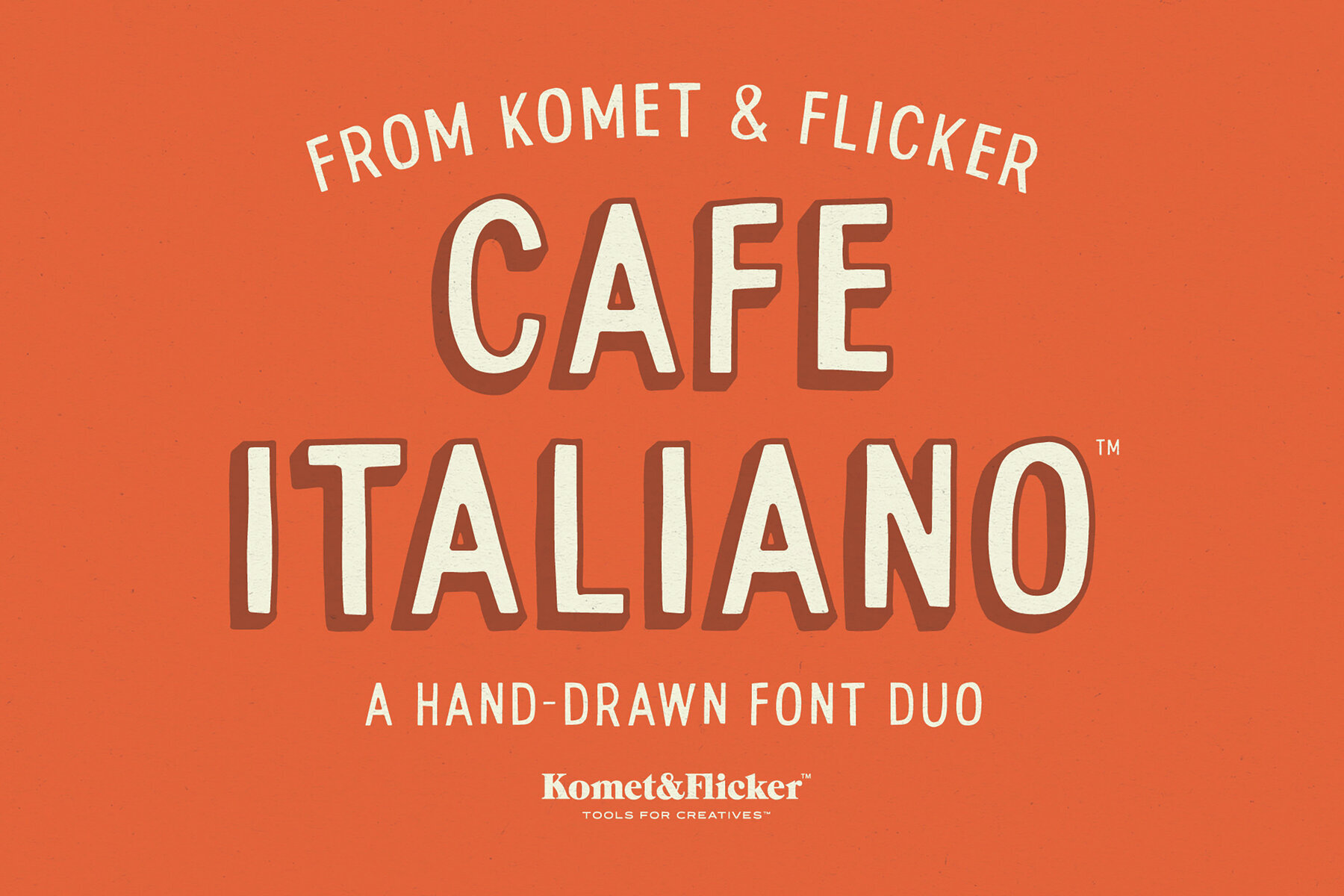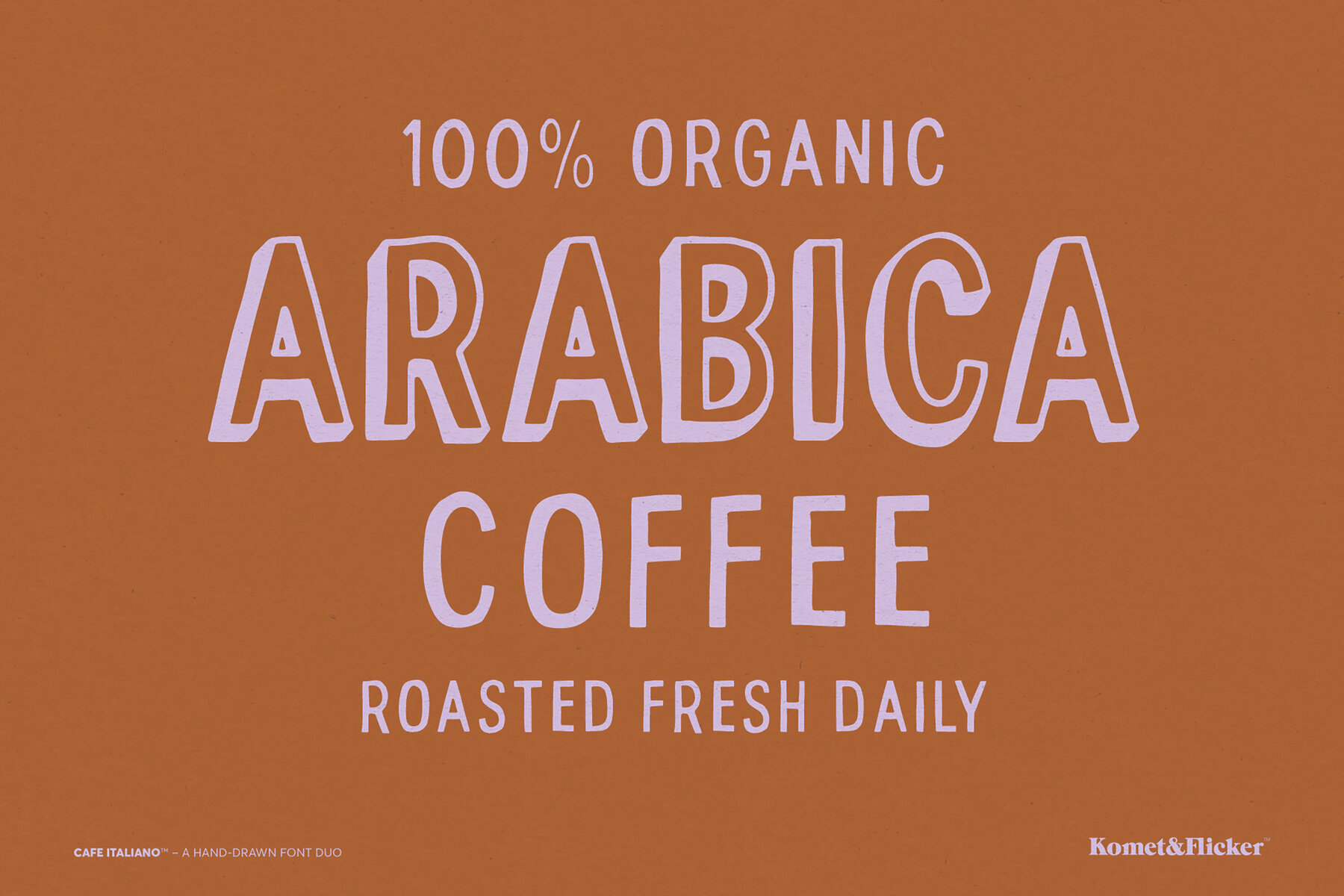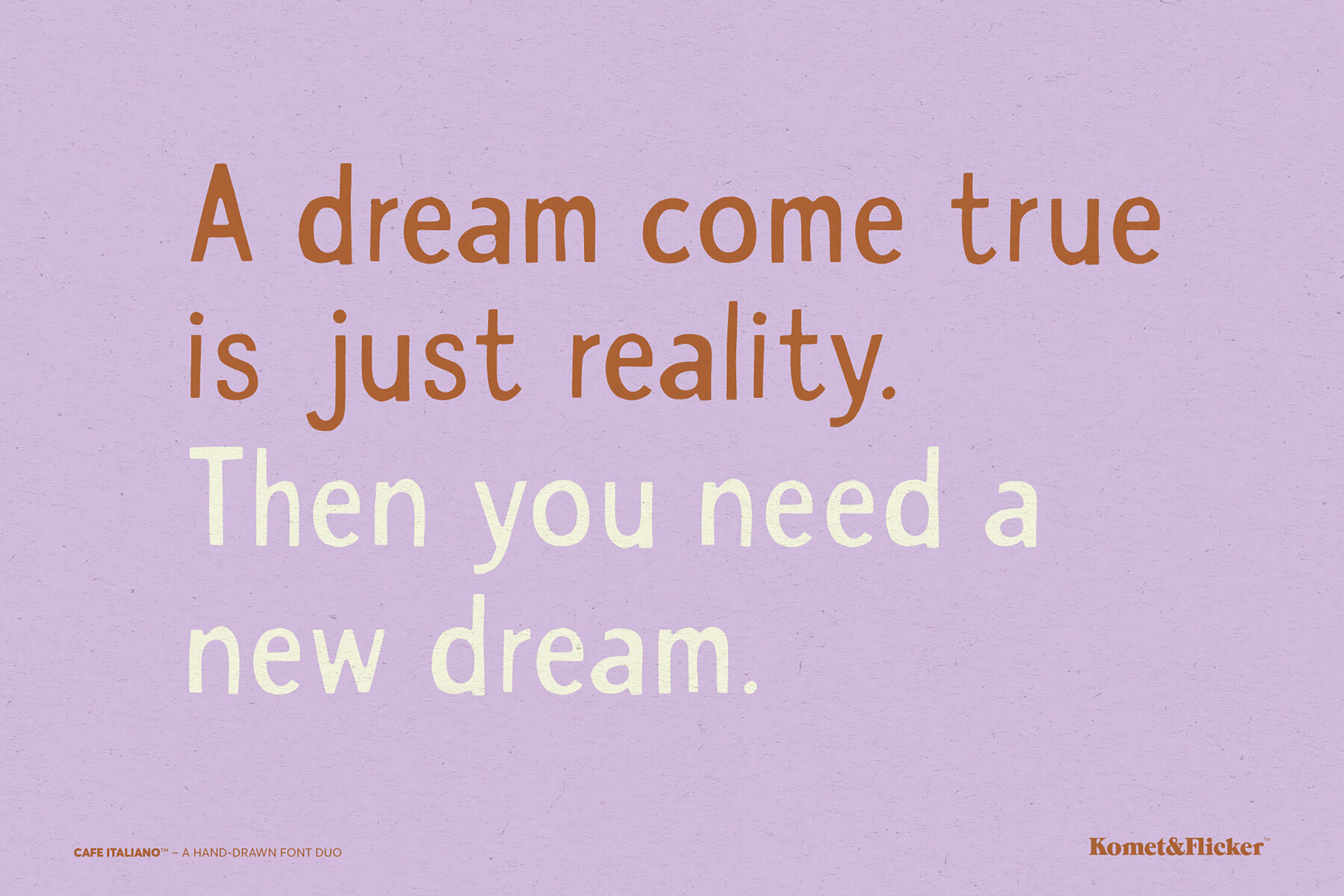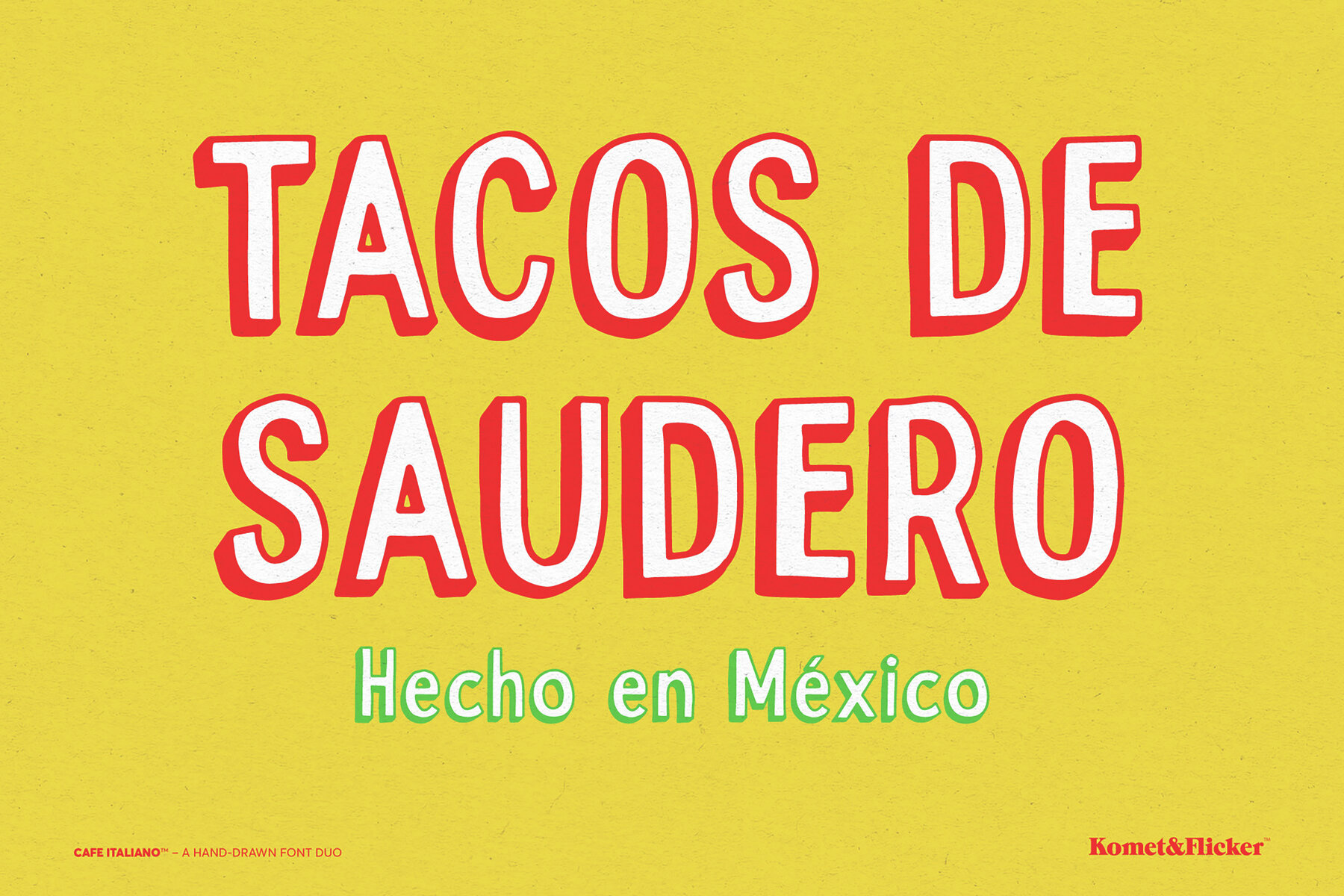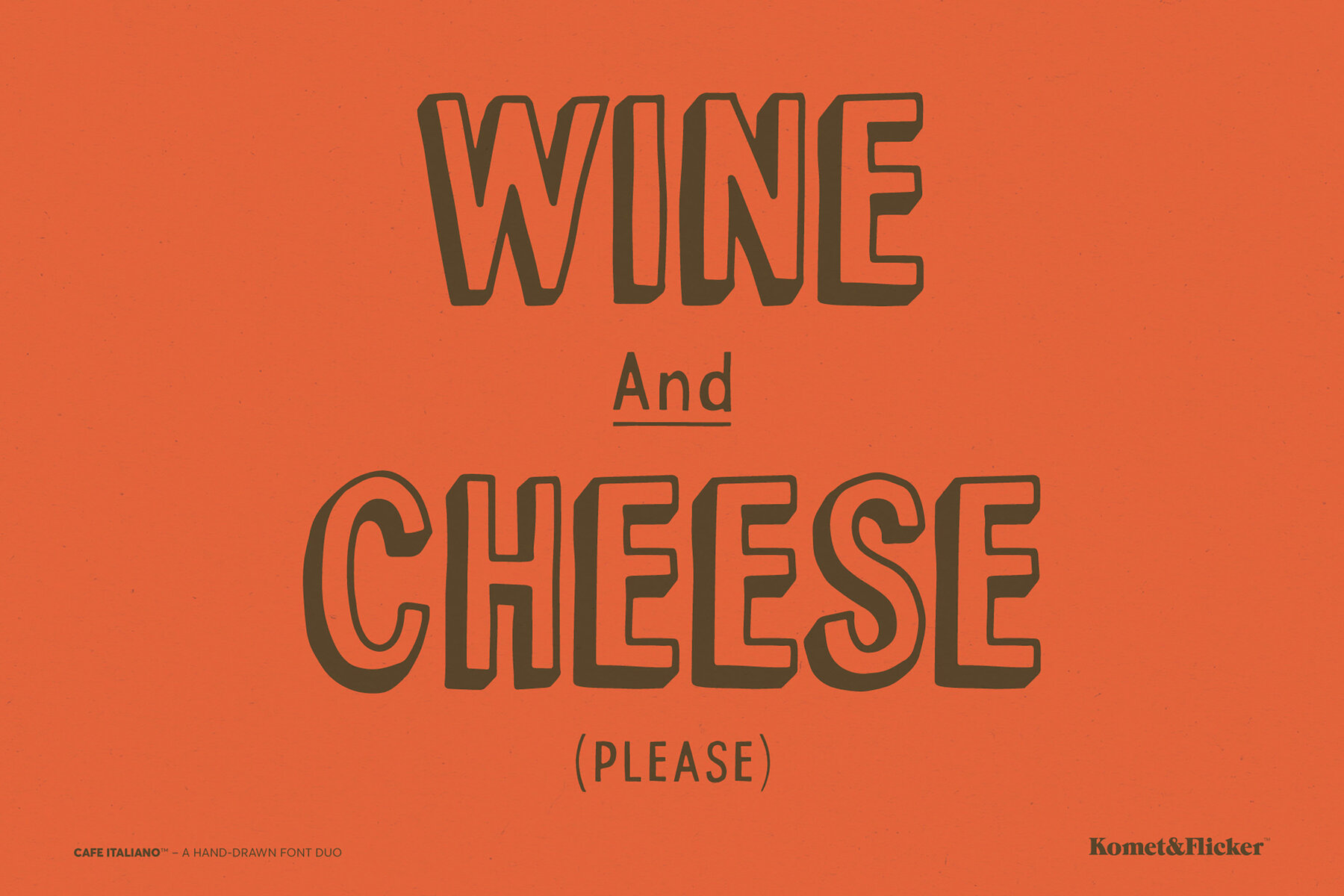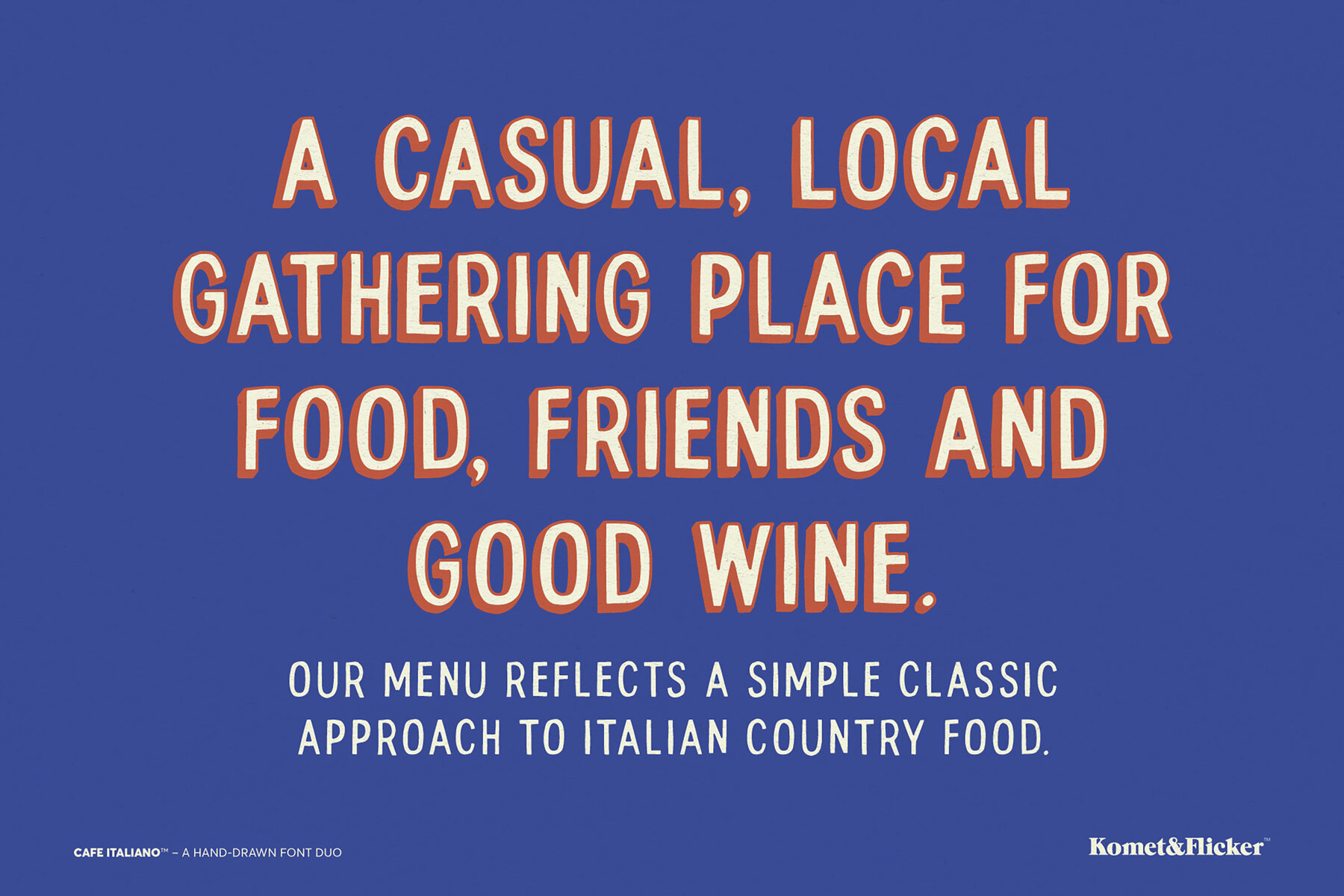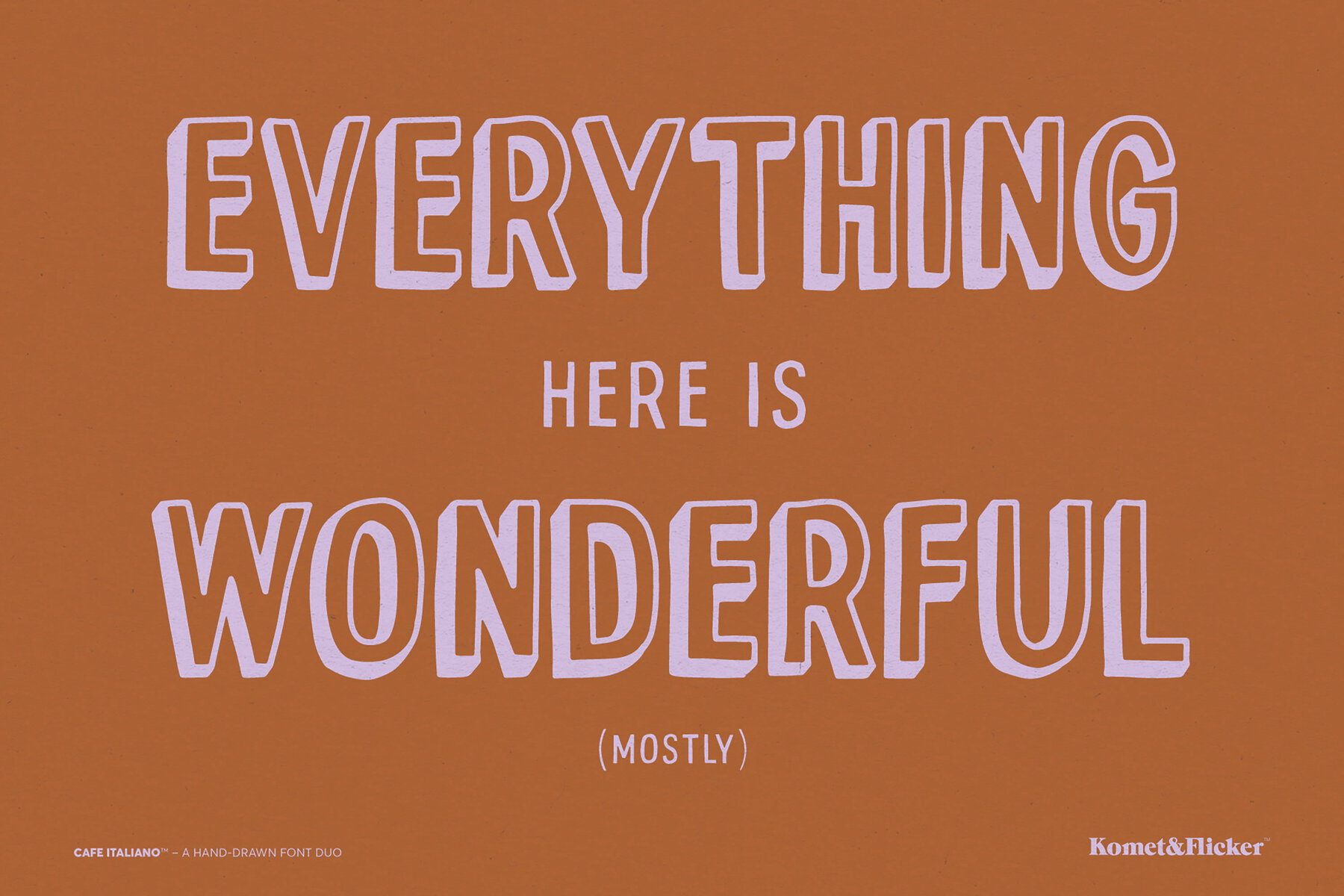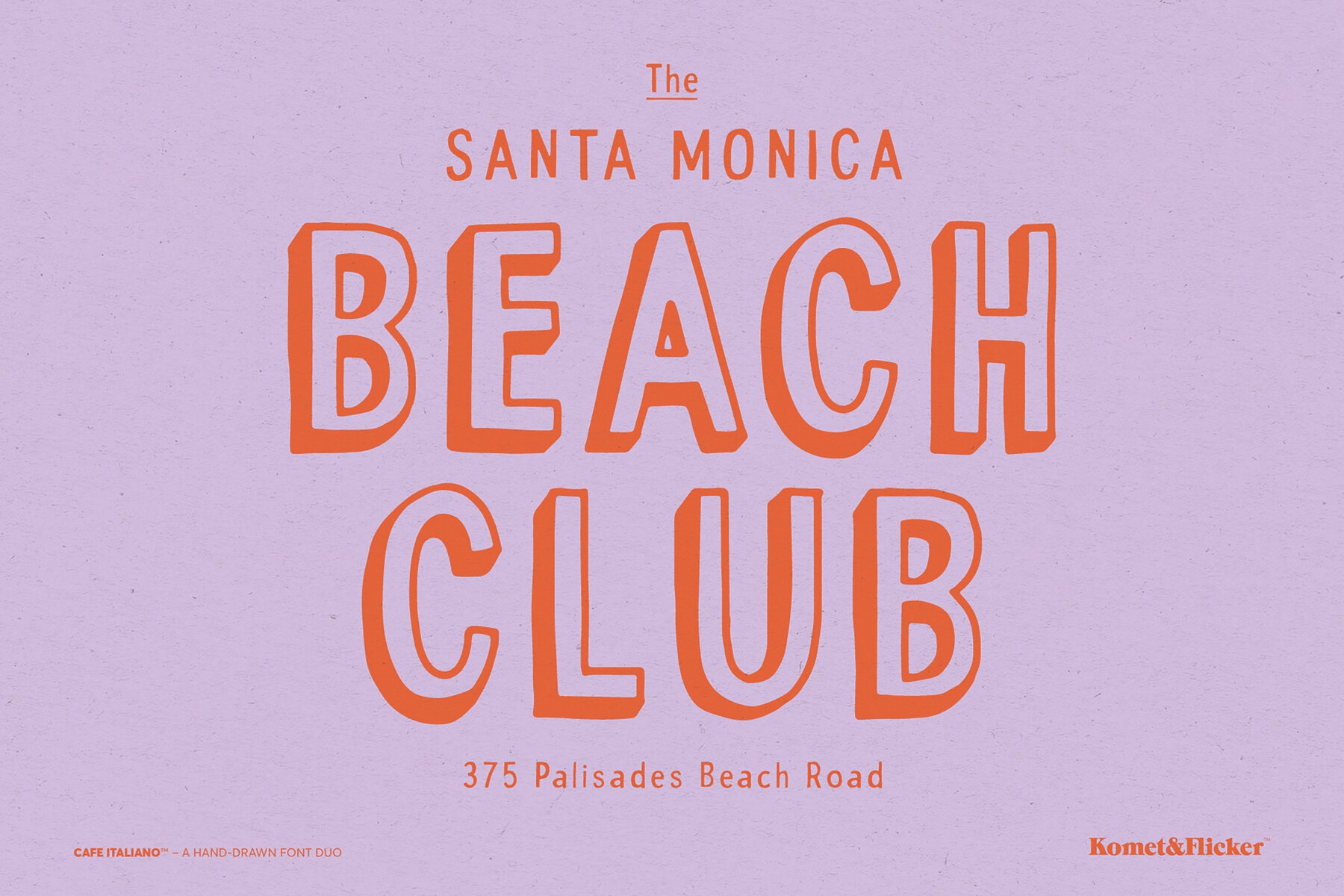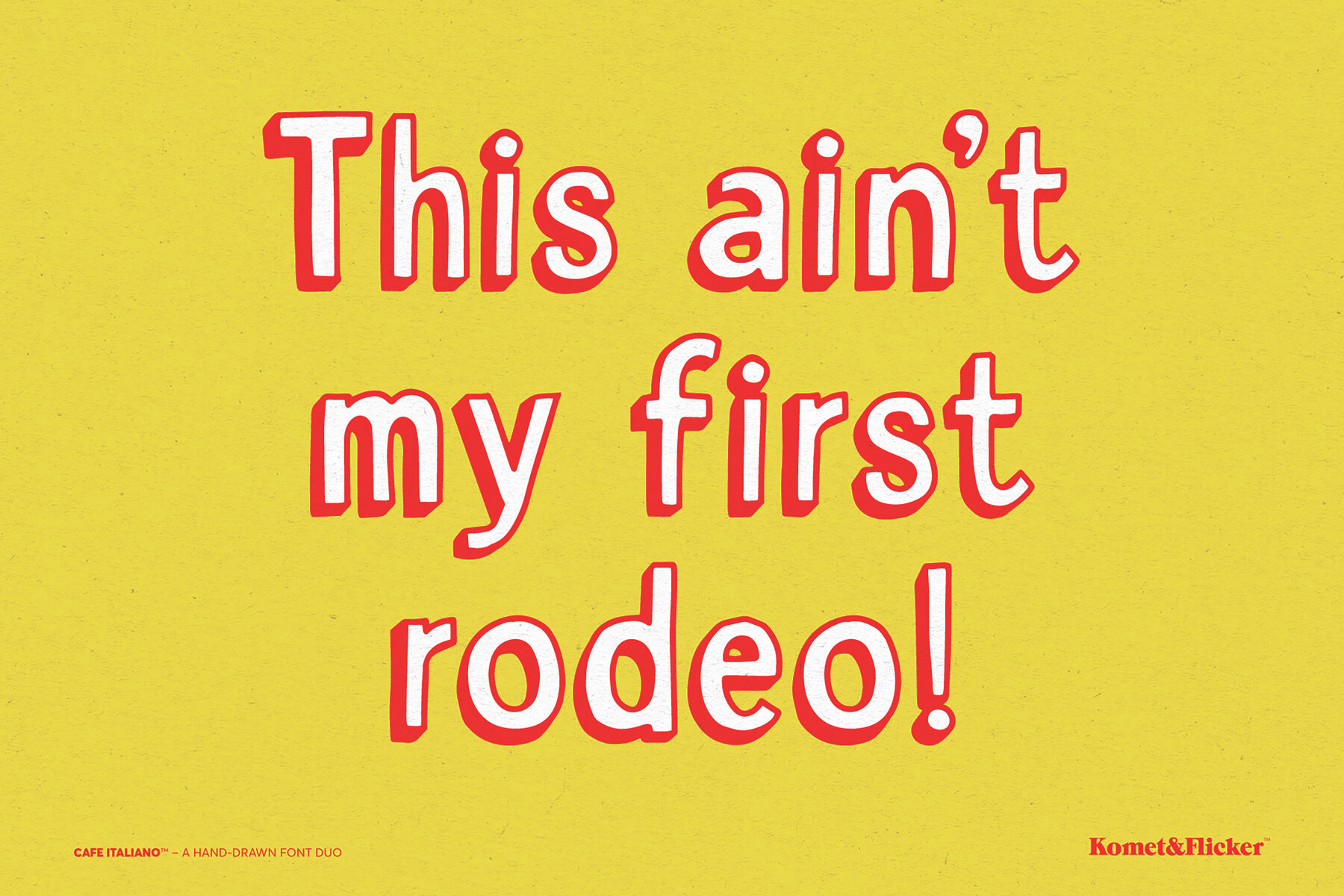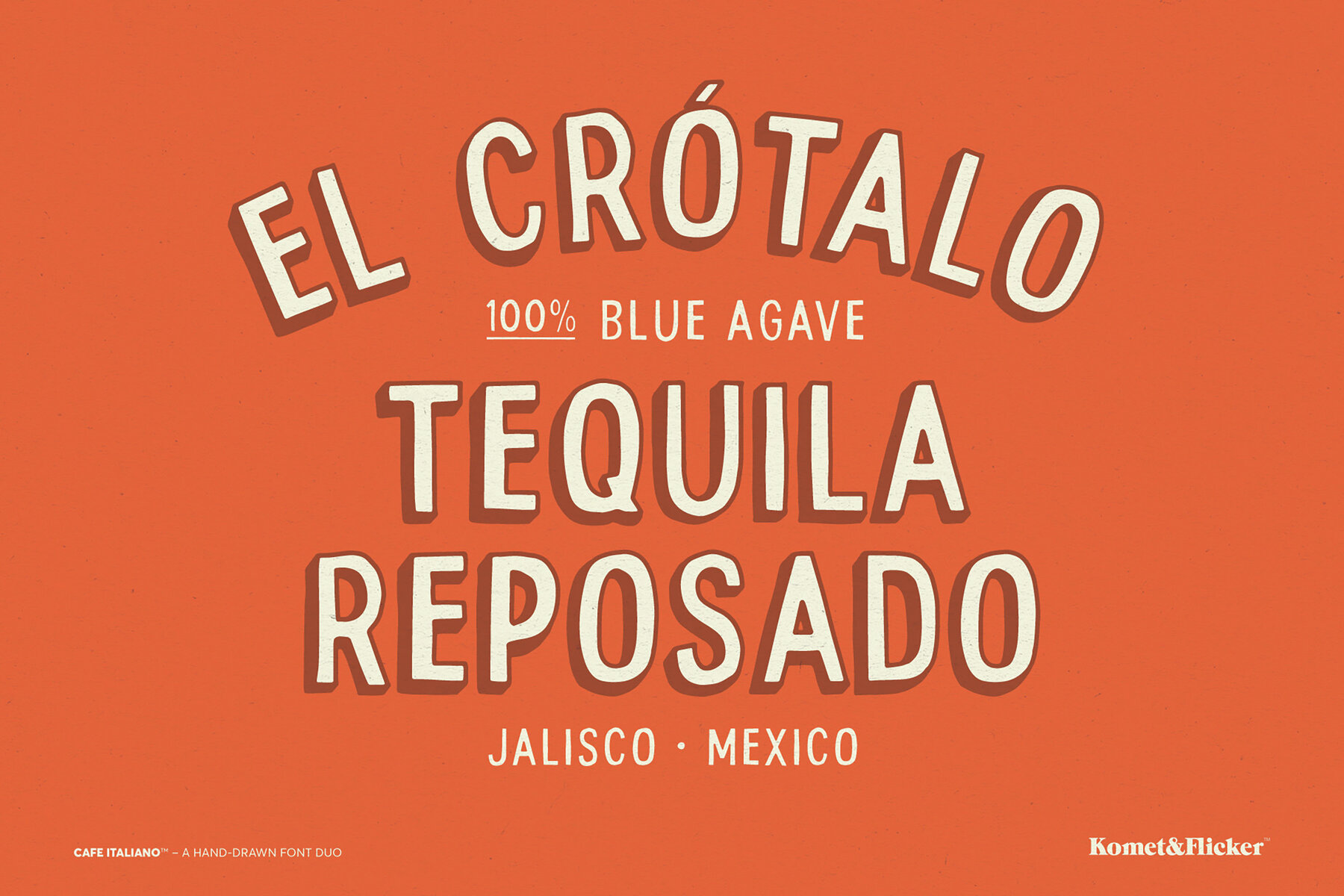
Cafe Italiano Font
Cafe Italiano Fill
Cafe Italiano Shadow
Embrace the charm of Cafe Italiano, a delightful hand-drawn font duo that injects playful warmth into your designs. Available in two styles, Shadow and Fill, this font offers remarkable versatility. The Shadow variant adds bold dimensionality, perfect for those seeking a vintage touch. The Fill version overlays seamlessly atop the Shadow for vibrant, color-filled typography or stands independently for a relaxed, inviting feel. Additionally, 20 custom connecting words—such as 'AND' and 'WITH'—enhance your compositions with cohesive flair. Access extra custom glyphs easily: In Illustrator via "Type → Glyphs" and in Photoshop through "Type → Panels → Glyphs Panel."Cafe Italiano: Playful Hand-Drawn Font Duo